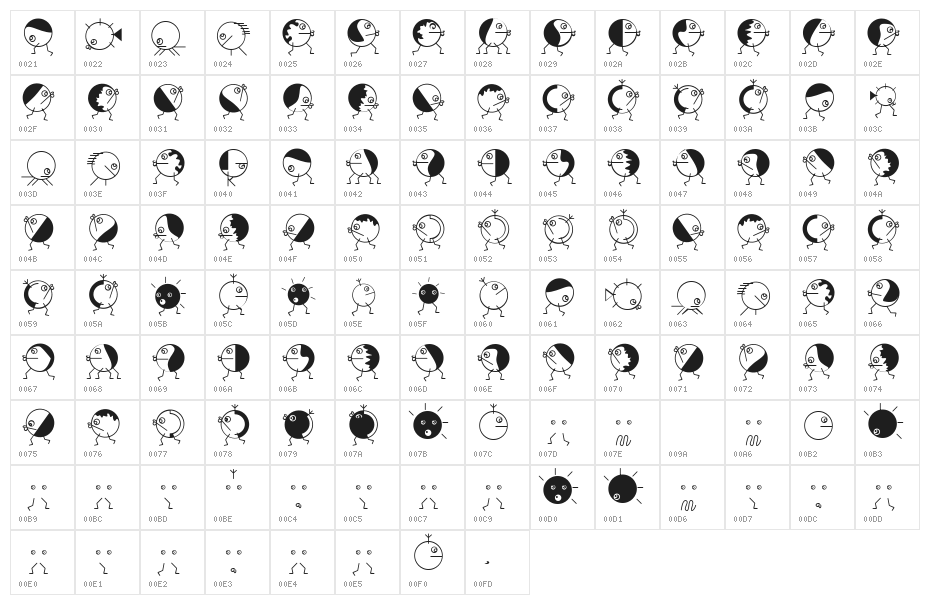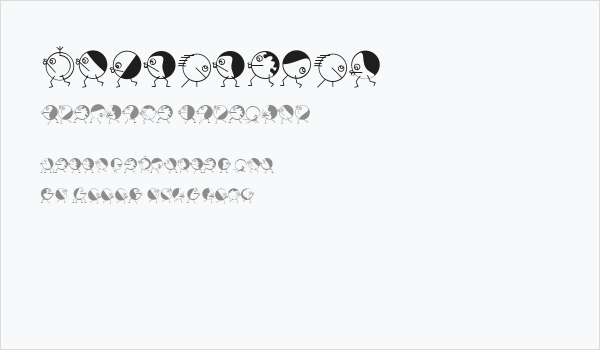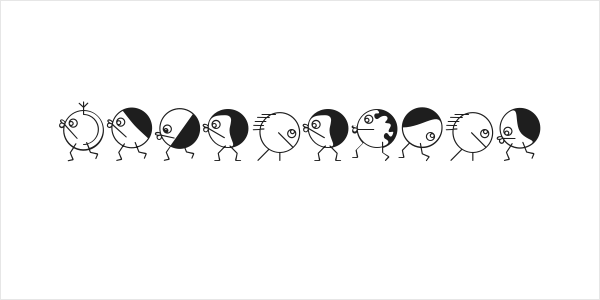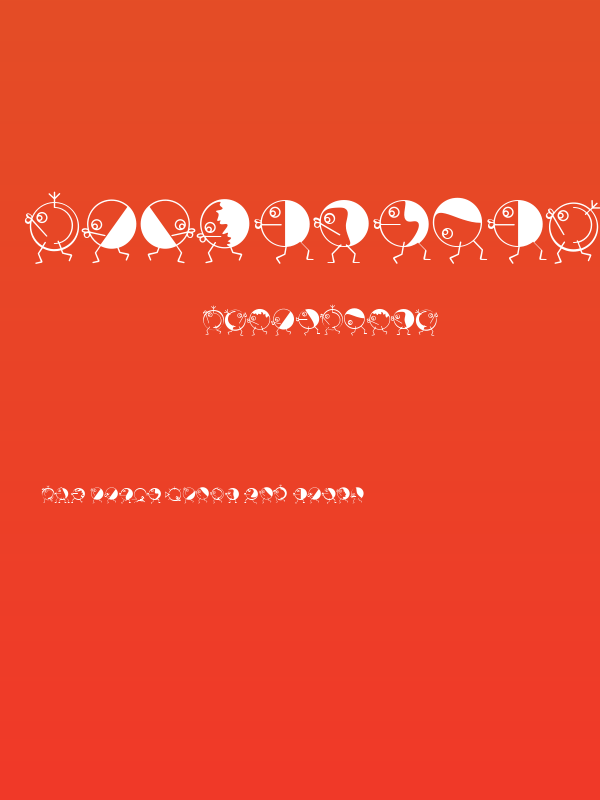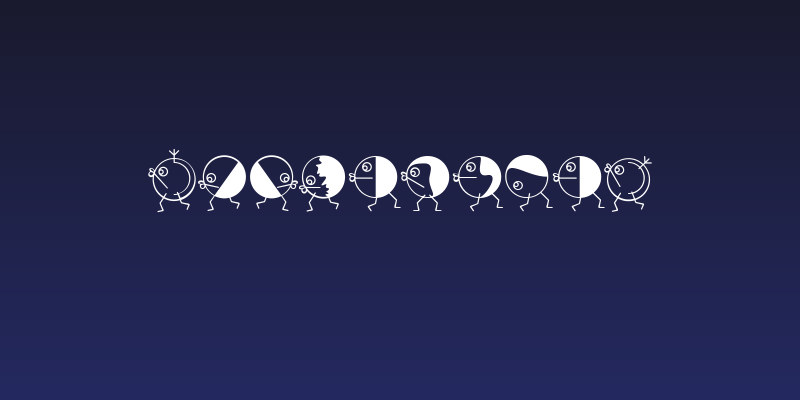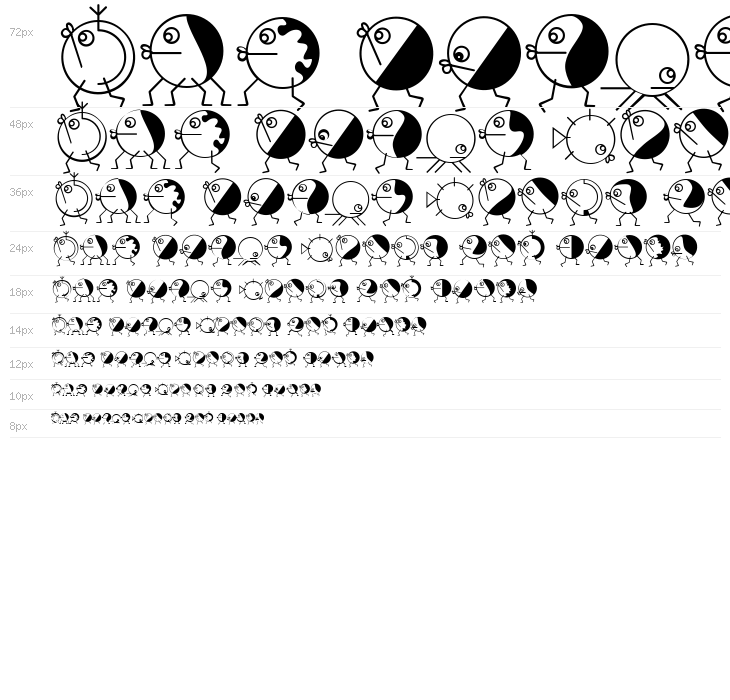
RoundHeads Font
RoundHeads Description
A playful, decorative typeface featuring round, cartoonish characters with expressive faces and stick-figure limbs, each glyph uniquely illustrated with bold black and white contrasts.
Overall StylePlayful, Whimsical, Decorative
Use CaseHeadlines, Logos, Posters, ChildrenÒ€ℒs content
Proposed ProjectsChildrenÒ€ℒs books, playful branding, posters, comic strips, educational materials.